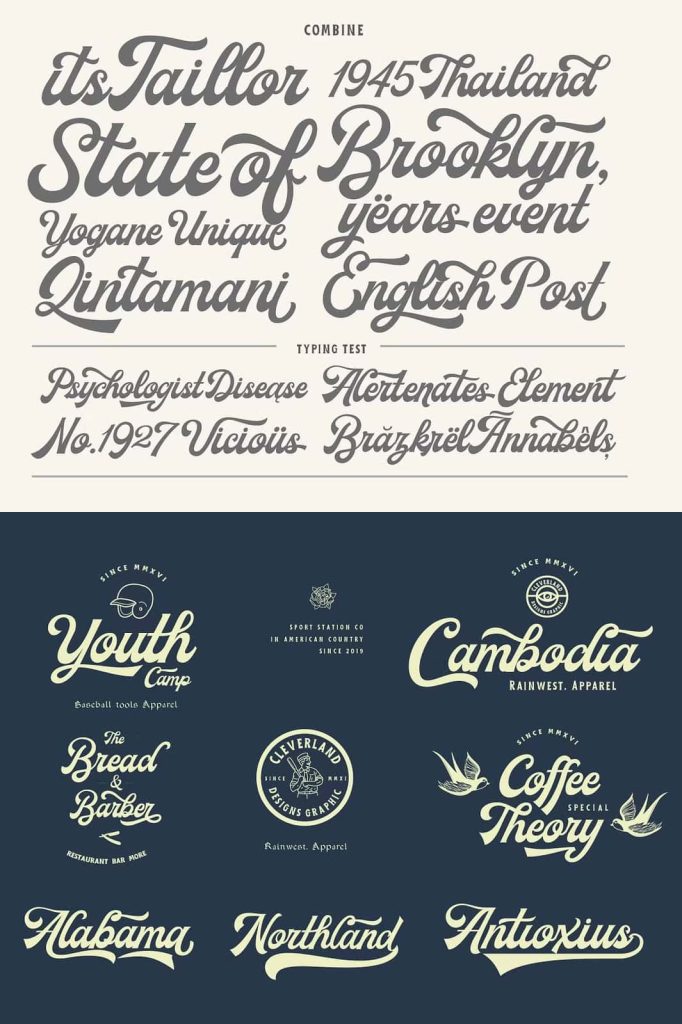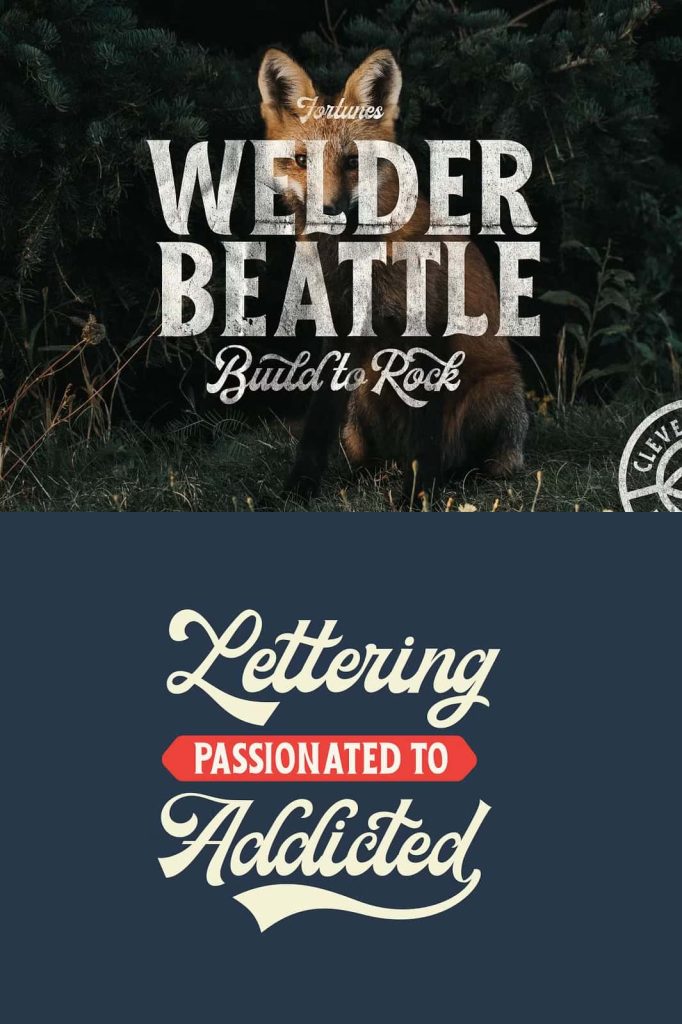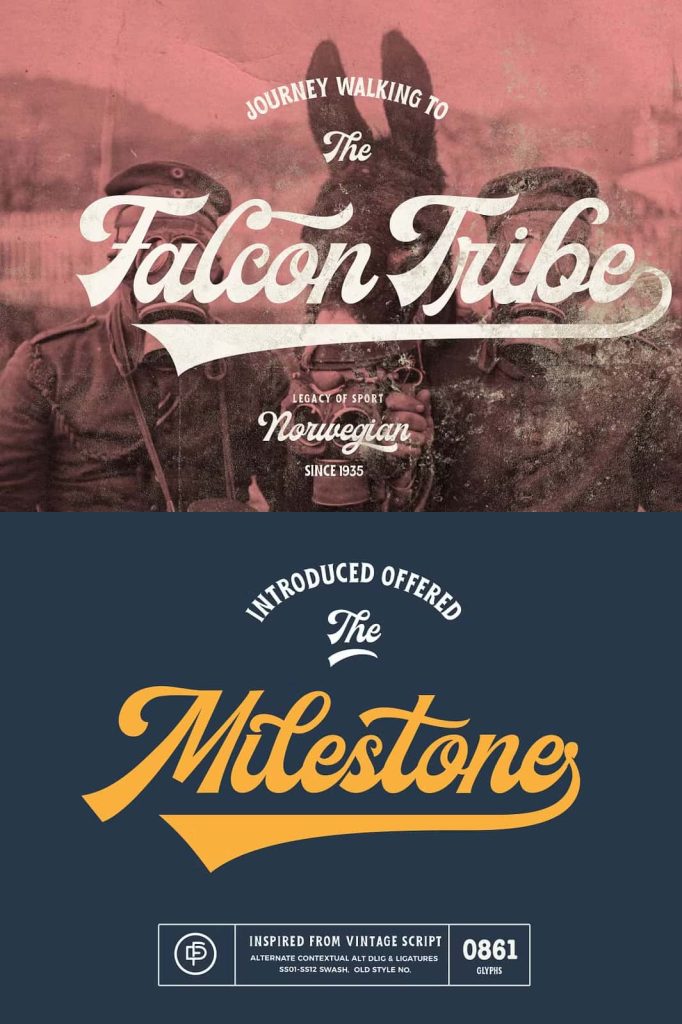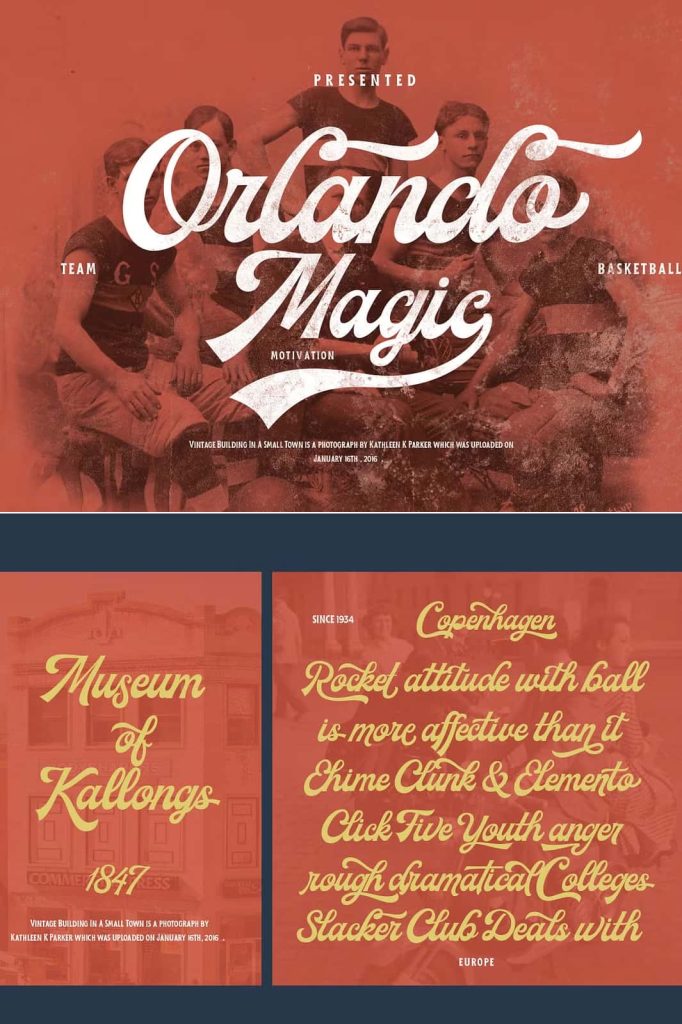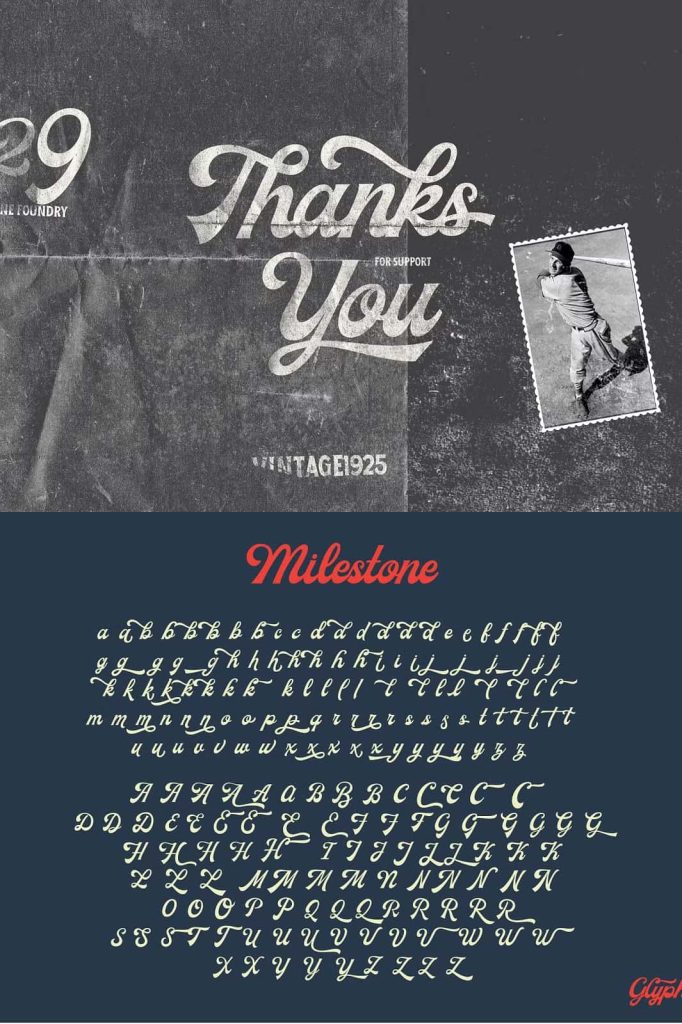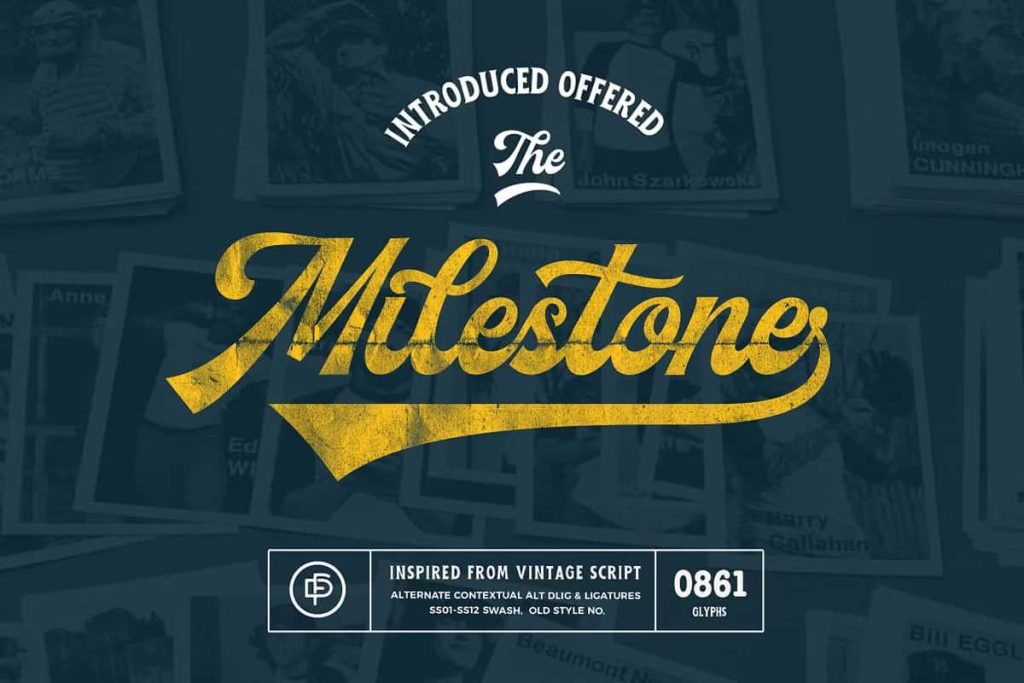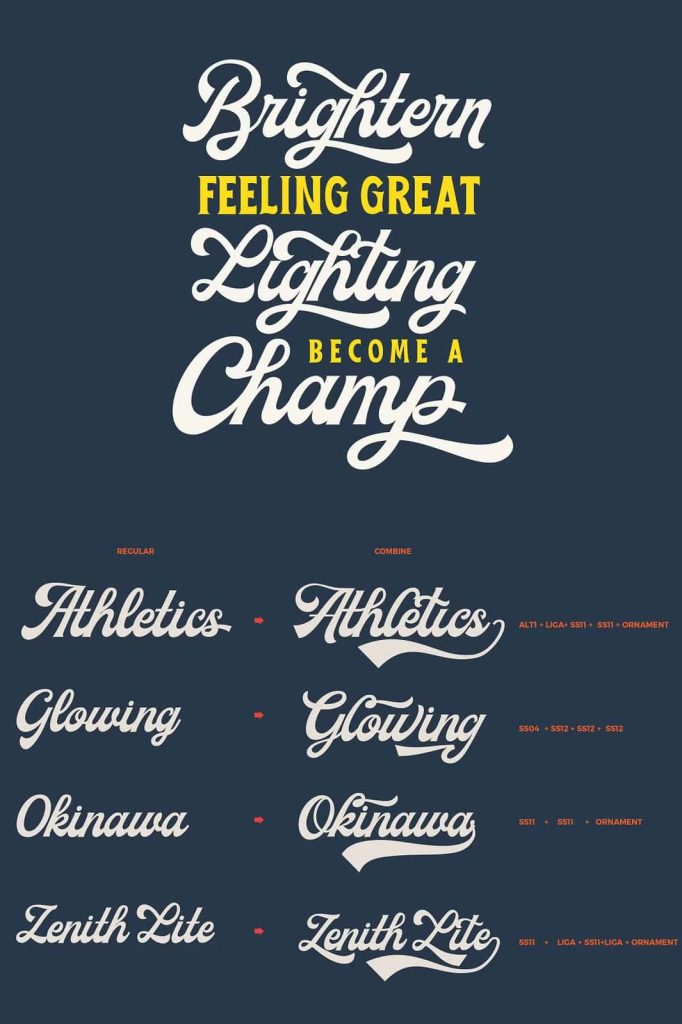
Milestone Vintage Font – Classic Retro Typeface Inspired by Baseball and Sign Painting
Milestone Vintage Font is a beautifully crafted retro typeface inspired by the timeless aesthetics of vintage baseball culture, traditional sign painting, and classic product labeling. Designed to capture the charm and authenticity of past decades, Milestone delivers a distinctive old-fashioned character that instantly adds personality and nostalgia to any design project.
With its strong vintage appeal, Milestone is ideal for designers, branding specialists, and business owners looking to create authentic visual experiences that stand out in today’s modern marketplace. The font combines traditional craftsmanship with professional versatility, making it suitable for logos, product packaging, labels, signage, promotional materials, and countless other creative applications.
Whether you are designing for a rustic coffee shop, a classic barbershop, a craft beverage brand, or a heritage-inspired product line, Milestone provides the perfect balance of character, readability, and vintage style.
Inspired by Vintage Baseball and Traditional Craftsmanship
Milestone draws inspiration from the golden era of baseball, where team logos, uniforms, and stadium signage featured bold typography with distinctive character. These historical influences help create a font that feels authentic and timeless while maintaining excellent usability for modern design projects.
Beyond its sports-inspired roots, the typeface also embraces the artistry of traditional sign painting. Skilled sign painters once created storefronts, advertisements, and hand-lettered signs that defined local businesses and communities. Milestone captures that handcrafted spirit and transforms it into a versatile digital typeface suitable for contemporary creative work.
The result is a font that celebrates heritage, craftsmanship, and classic design traditions while offering the flexibility required by today’s designers.
Create Authentic Vintage Branding
Strong branding often depends on typography that communicates a specific personality and story. Milestone helps brands establish an authentic vintage identity by incorporating design elements inspired by historical signage and classic lettering styles.
Businesses that want to communicate tradition, quality, and craftsmanship can use Milestone to strengthen their visual identity. The font creates a sense of trust and familiarity while helping brands stand apart from competitors that rely on generic modern typography.
Build Memorable Logos
Milestone works exceptionally well for logo design. Its vintage character creates memorable brand marks that feel established, trustworthy, and distinctive. Whether you are creating a logo for a coffee shop, brewery, restaurant, clothing brand, or artisan business, Milestone helps communicate authenticity and heritage.
Strengthen Brand Recognition
The unique letterforms and nostalgic appearance help businesses create visual identities that customers can easily recognize and remember. This makes Milestone an excellent choice for long-term branding strategies.
Perfect for Product Packaging and Labels
Packaging design often serves as the first interaction between a customer and a product. Milestone enhances product presentation by adding a classic and handcrafted appearance that attracts attention and communicates quality.
The font works particularly well for food packaging, coffee labels, craft beverages, specialty goods, handmade products, and premium merchandise. Its vintage style helps products feel authentic and carefully crafted, encouraging customers to engage with the brand.
When used on labels and packaging, Milestone creates a timeless visual appeal that remains effective across different industries and market segments.
Ideal for Coffee Shops, Bars, and Restaurants
Hospitality businesses often rely on atmosphere and storytelling to attract customers. Milestone supports these goals by providing typography that reflects warmth, tradition, and character.
Old-fashioned coffee shops, craft breweries, cocktail bars, diners, and restaurants can use Milestone to reinforce their brand personality through menus, signage, packaging, and promotional materials. The font helps create a welcoming environment that feels both authentic and memorable.
Its vintage appearance pairs perfectly with rustic interiors, industrial aesthetics, handcrafted products, and heritage-inspired branding concepts.
Versatile for Print and Digital Design
While Milestone embraces historical influences, it performs exceptionally well in modern design environments. Designers can confidently use the font across print and digital platforms without sacrificing readability or visual impact.
The typeface works beautifully on posters, brochures, advertisements, social media graphics, websites, merchandise, apparel designs, and marketing campaigns. Its versatility allows businesses to maintain consistent branding across multiple channels while preserving the classic character that defines the font.
By choosing Milestone, designers gain access to a versatile typeface that brings authenticity and personality to every project. Whether creating a nostalgic brand identity, developing premium packaging, or designing promotional materials with a retro feel, Milestone delivers the vintage charm and professional quality needed to leave a lasting impression.